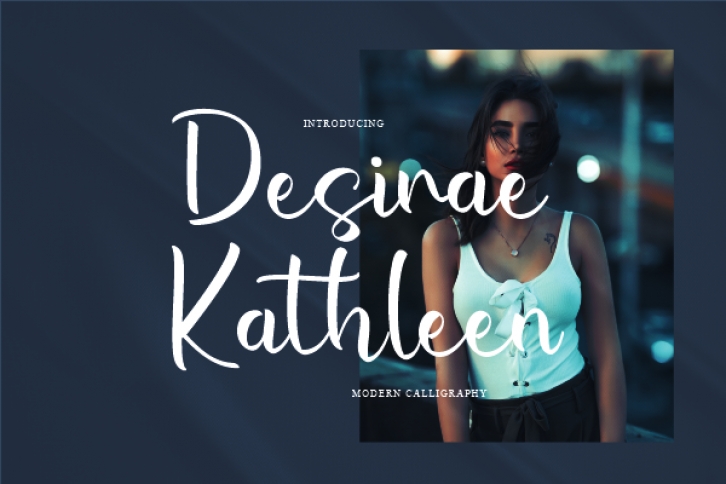
Desirae Kathleen is a dazzling script font. This font is neatly crafted and highly detailed. Whatever the topic, Desirae Kathleen will be a wonderful asset to your font library, as it has the potential to enhance any creation.